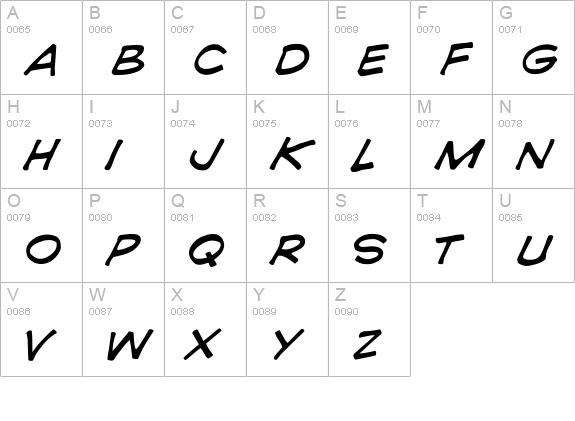
CCComicrazy-Italic Font Details
CCComicrazy-Italic is a distinctive, italic variant in the CCComicrazy typeface family \xE2\x80\x94 well suited to design and typography projects.
CCComicrazy-Italic is a playful and whimsical font that adds a touch of fun to any design project. With its slanted and italicized characters, this font is perfect for creating eye-catching headlines, posters, and social media graphics. The unique style of CCComicrazy-Italic makes it stand out from other fonts, giving your designs a fresh and dynamic look. The best part is that CCComicrazy-Italic is completely free to download at FontsMarket.com. Whether you're working on a personal project or a client's design, you can easily access this font without breaking the bank. So why wait? Add a dash of creativity to your designs with CCComicrazy-Italic today!